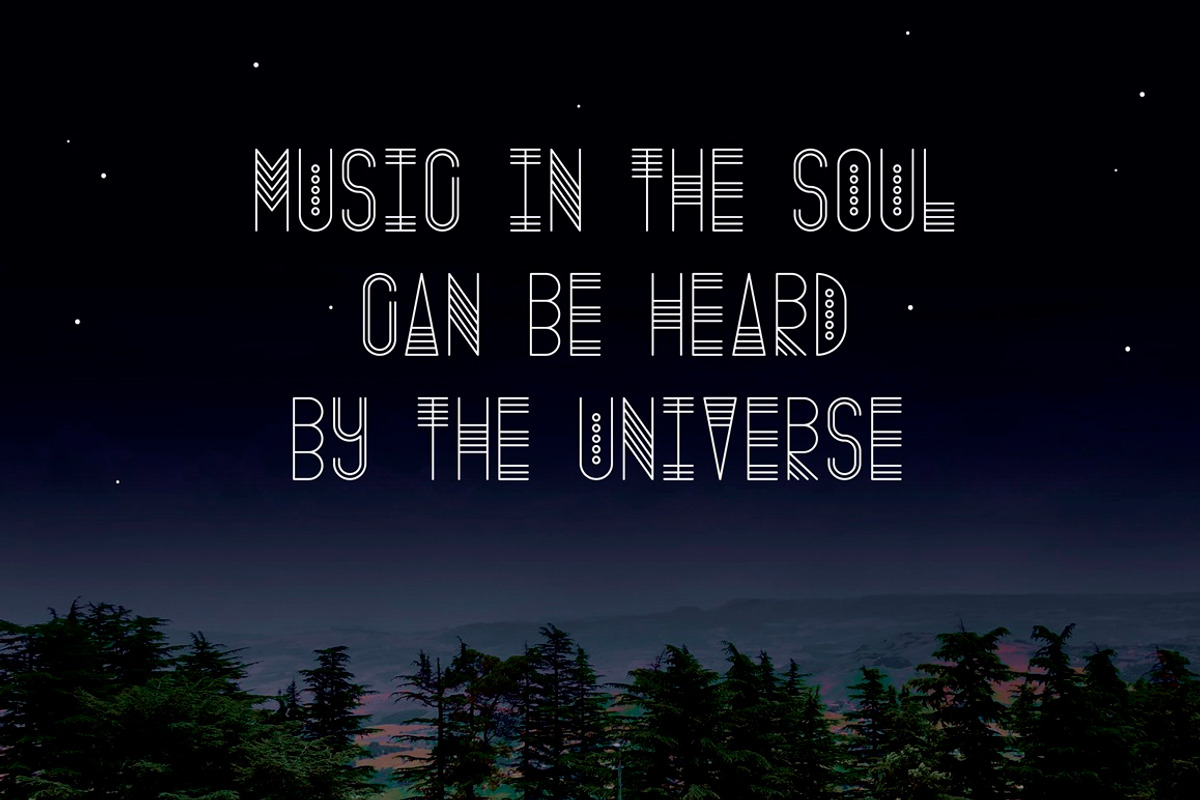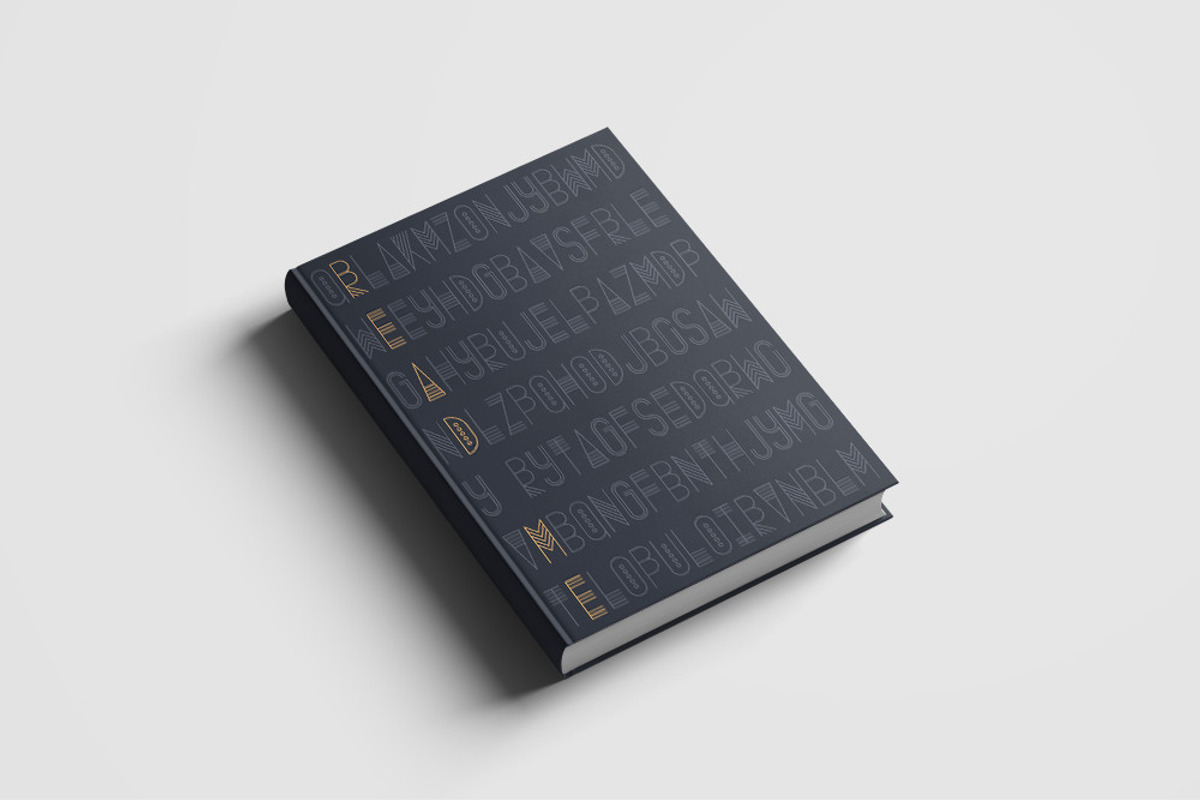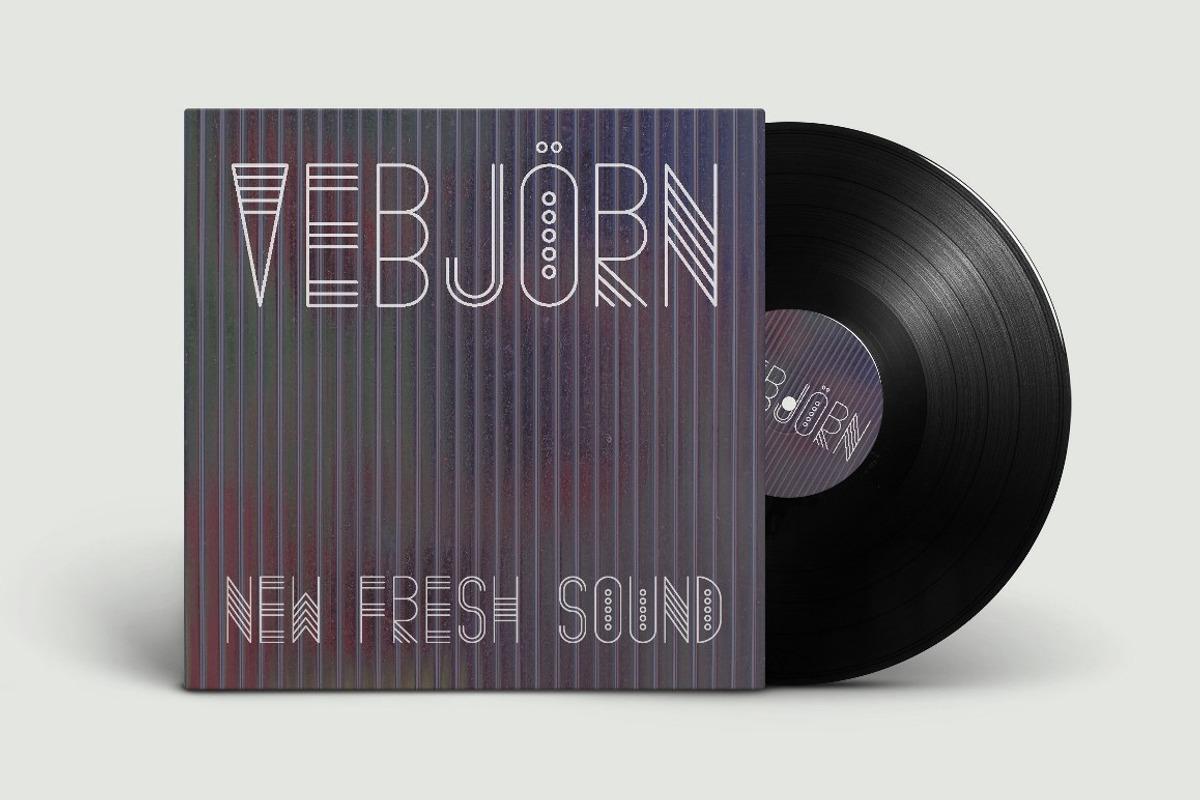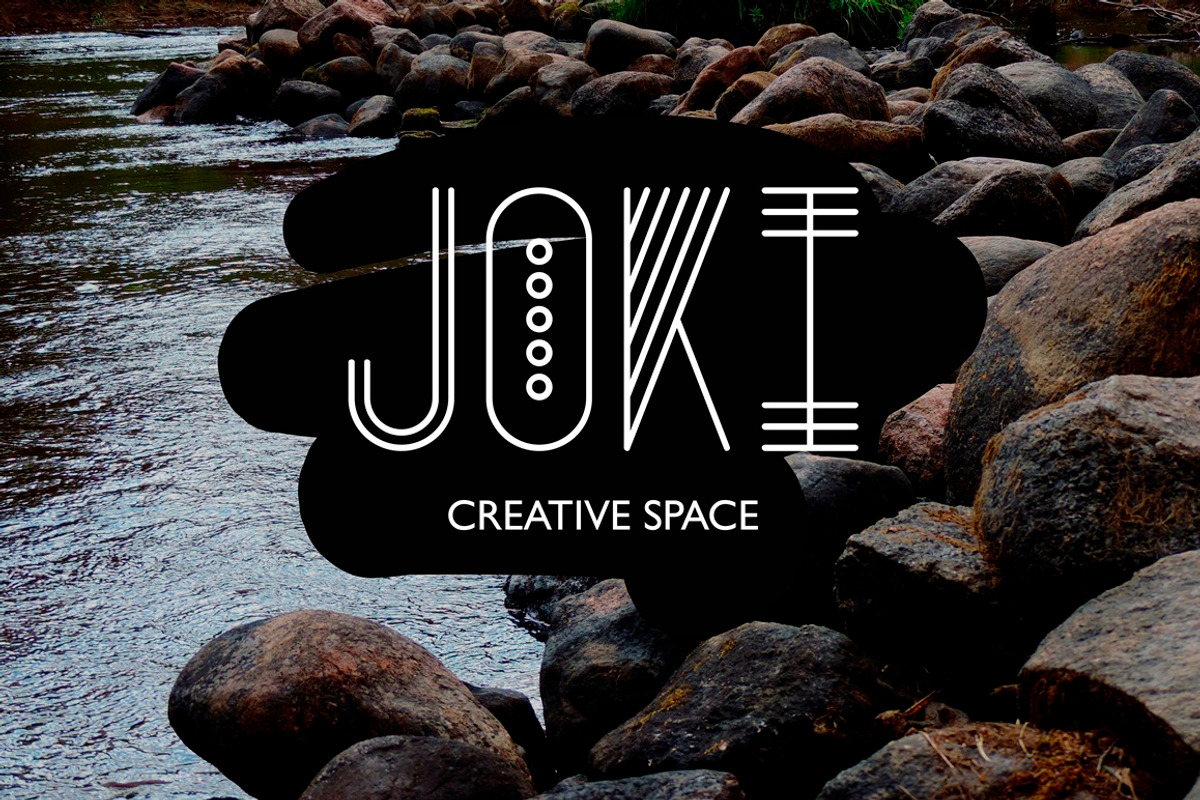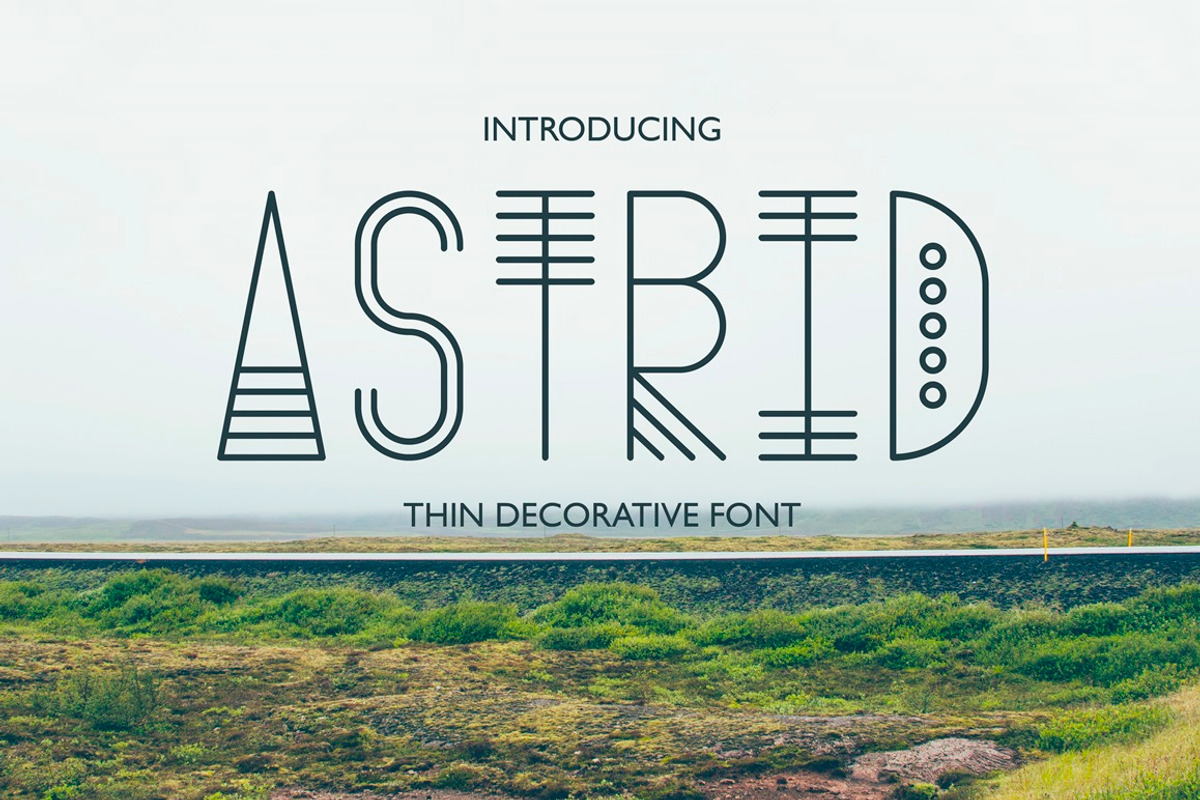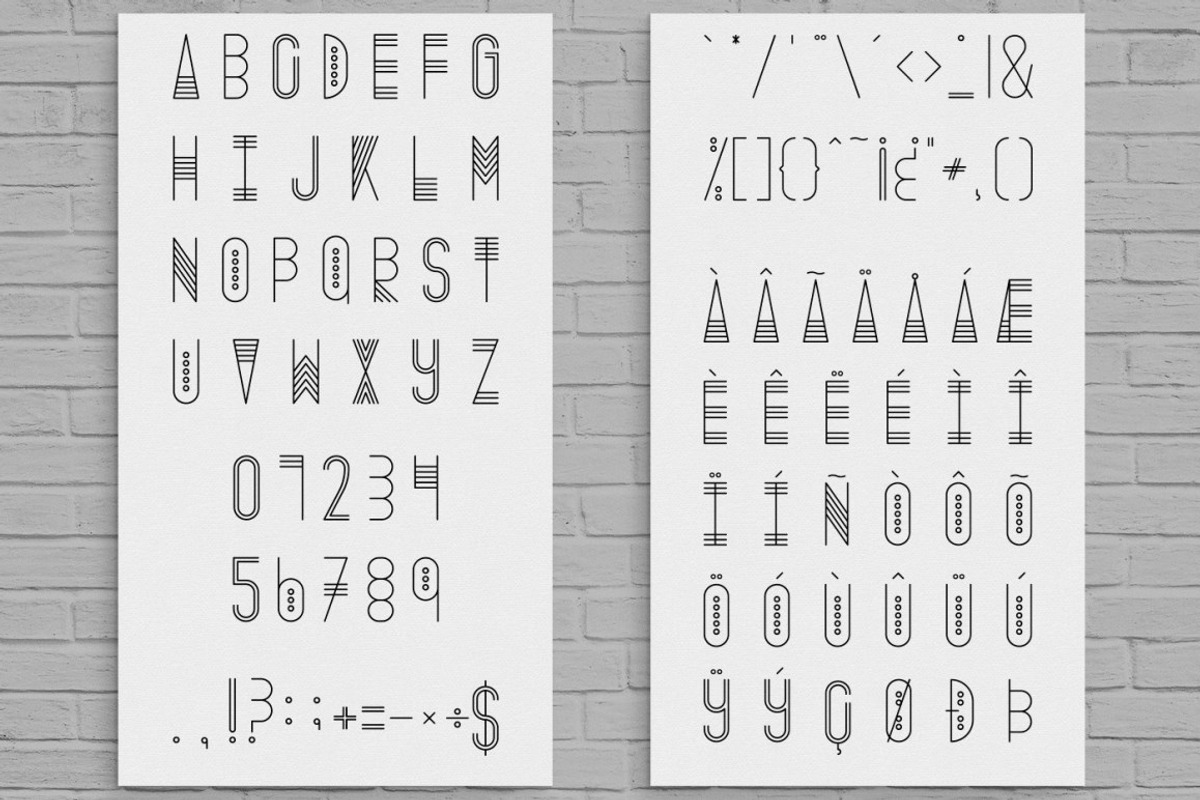
Astrid - Thin Decorative Font
Astrid - Thin Decorative Font by Anastasiia VNSK is a font selected for branding, posters, packaging, typography.
- It includes special symbols of most European languages, punctuations, numerals and mathematics signs.
Why Astrid - Thin Decorative Font is worth a look
Astrid - Thin Decorative Font by Anastasiia VNSK fits naturally into Branding, posters, packaging, typography.